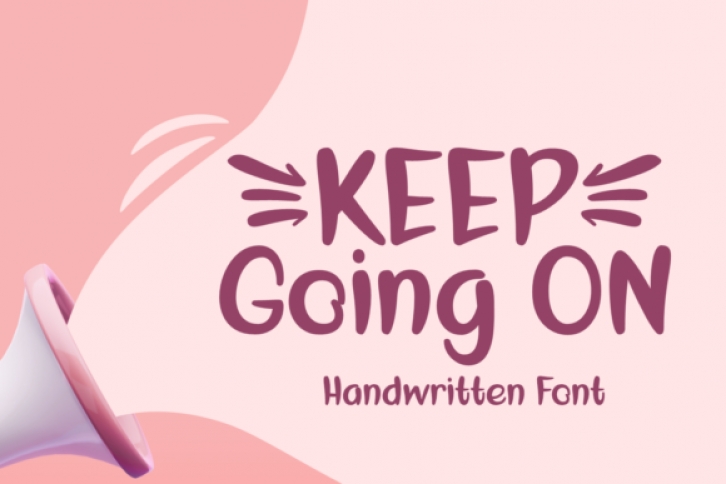
Keep Going On is a playful and sweet script font. It has a charming yet down to earth and readable style, which makes this font incredibly fitting to a wide range of designs. Add it confidently to your projects, and you won’t be disappointed.